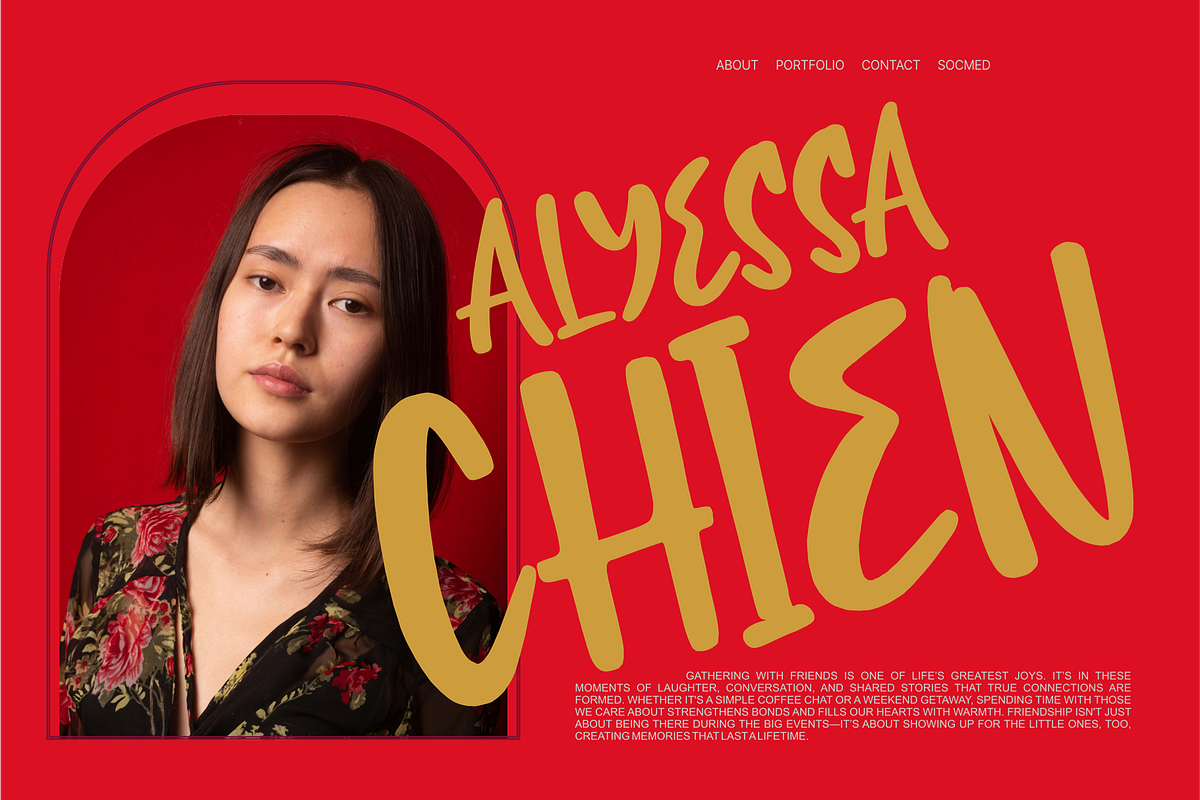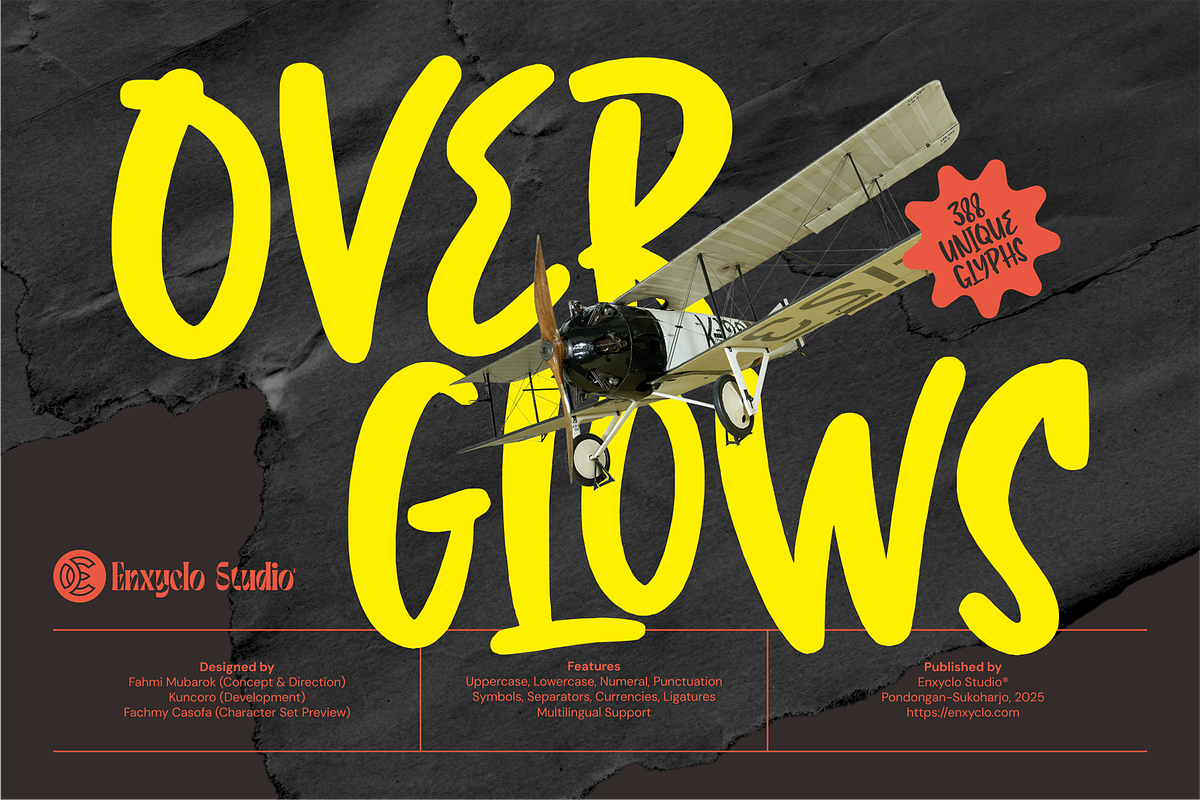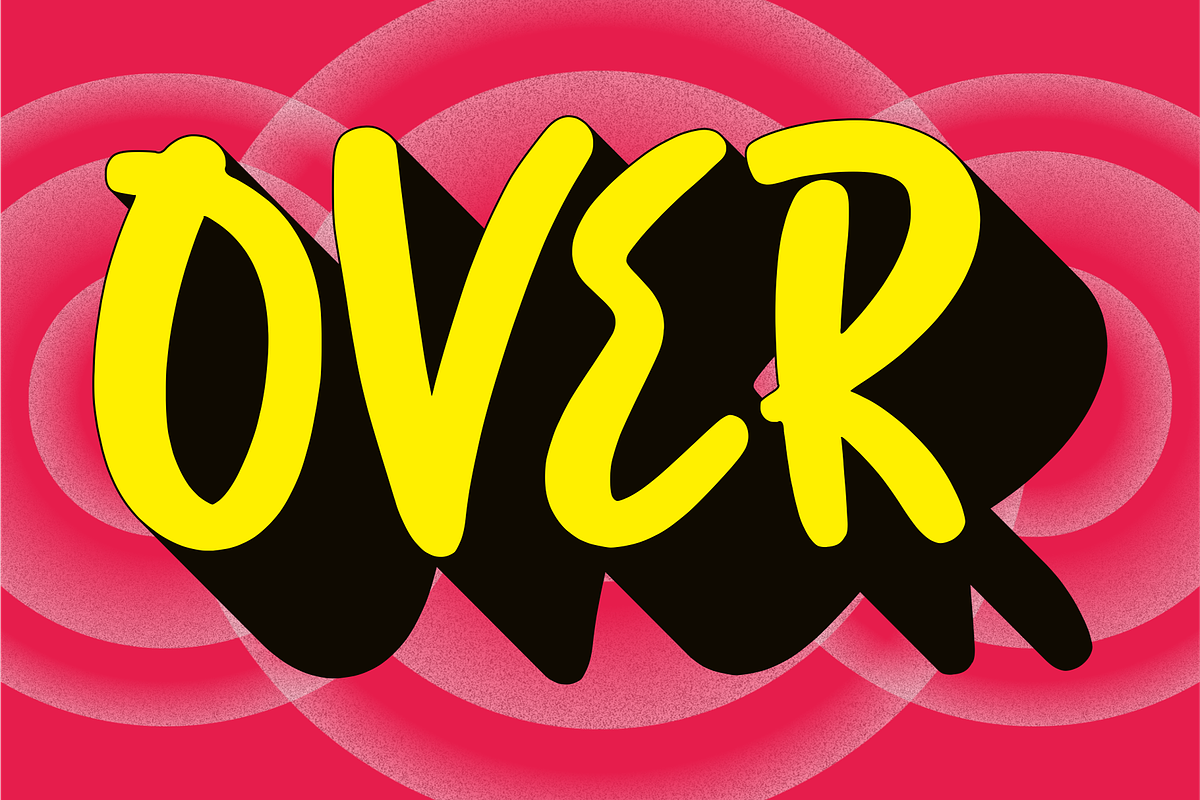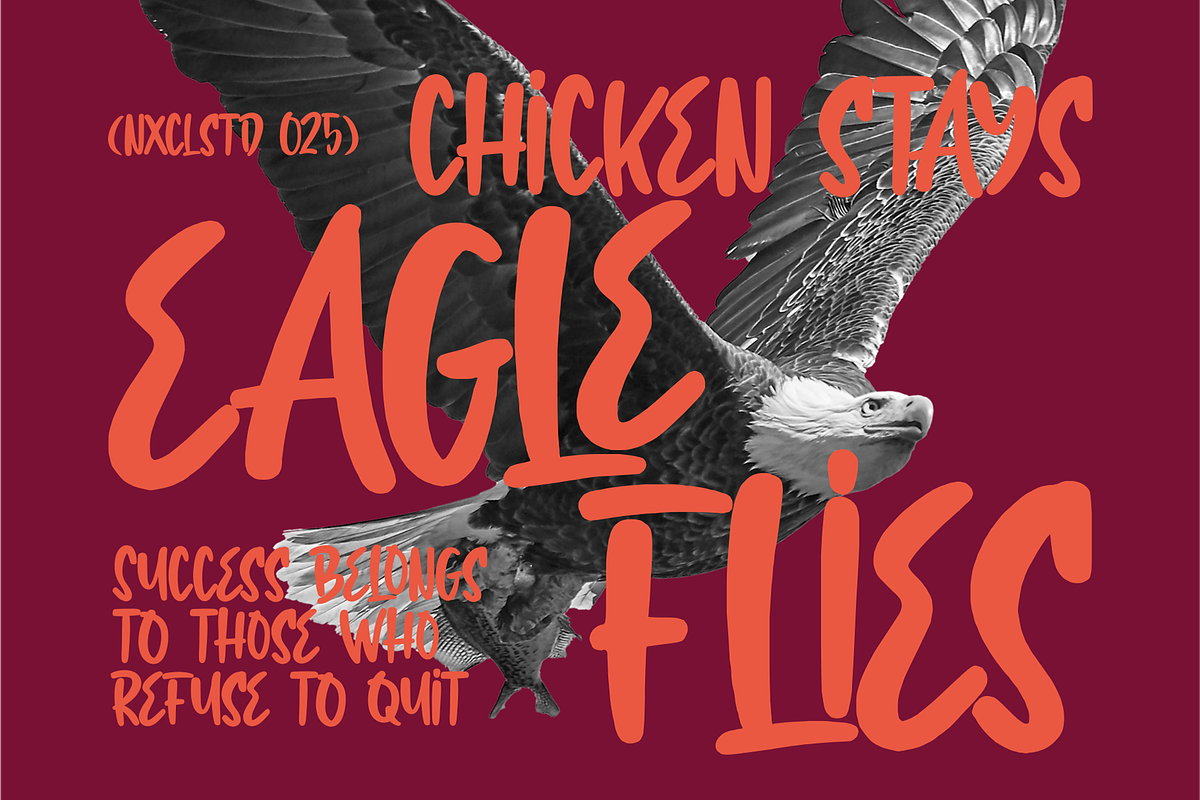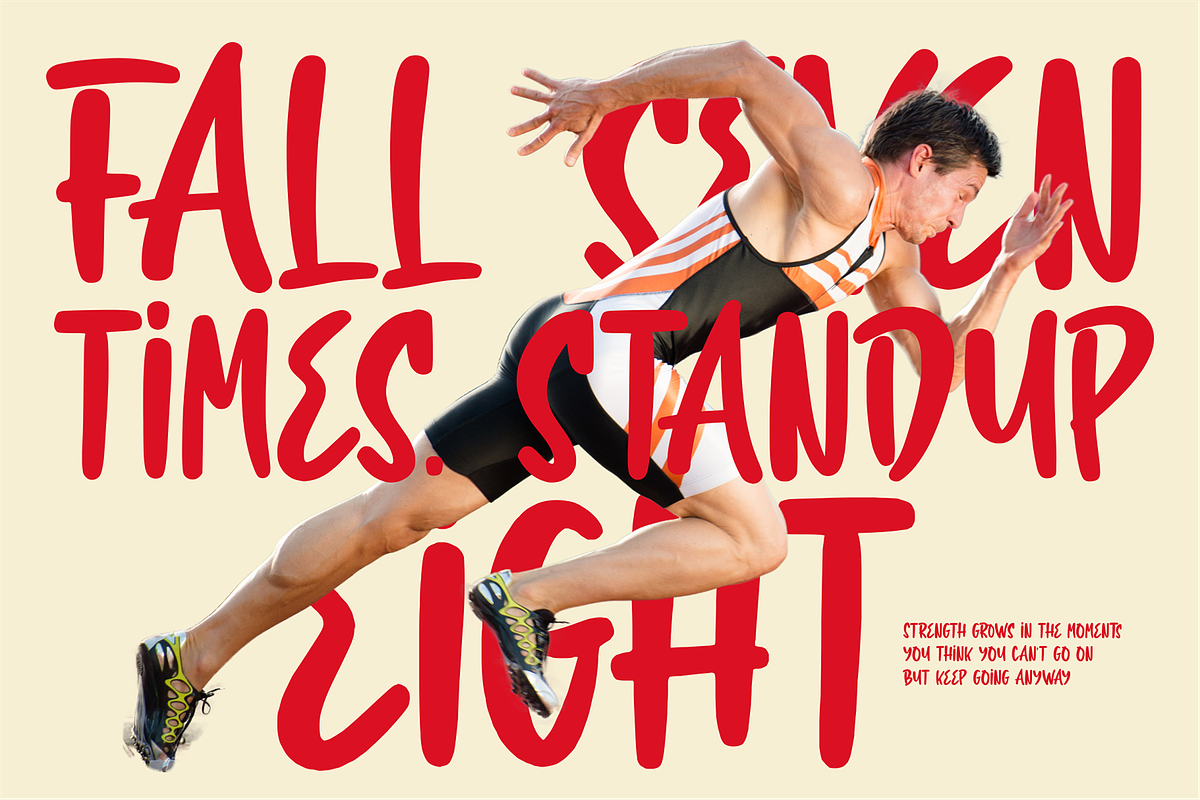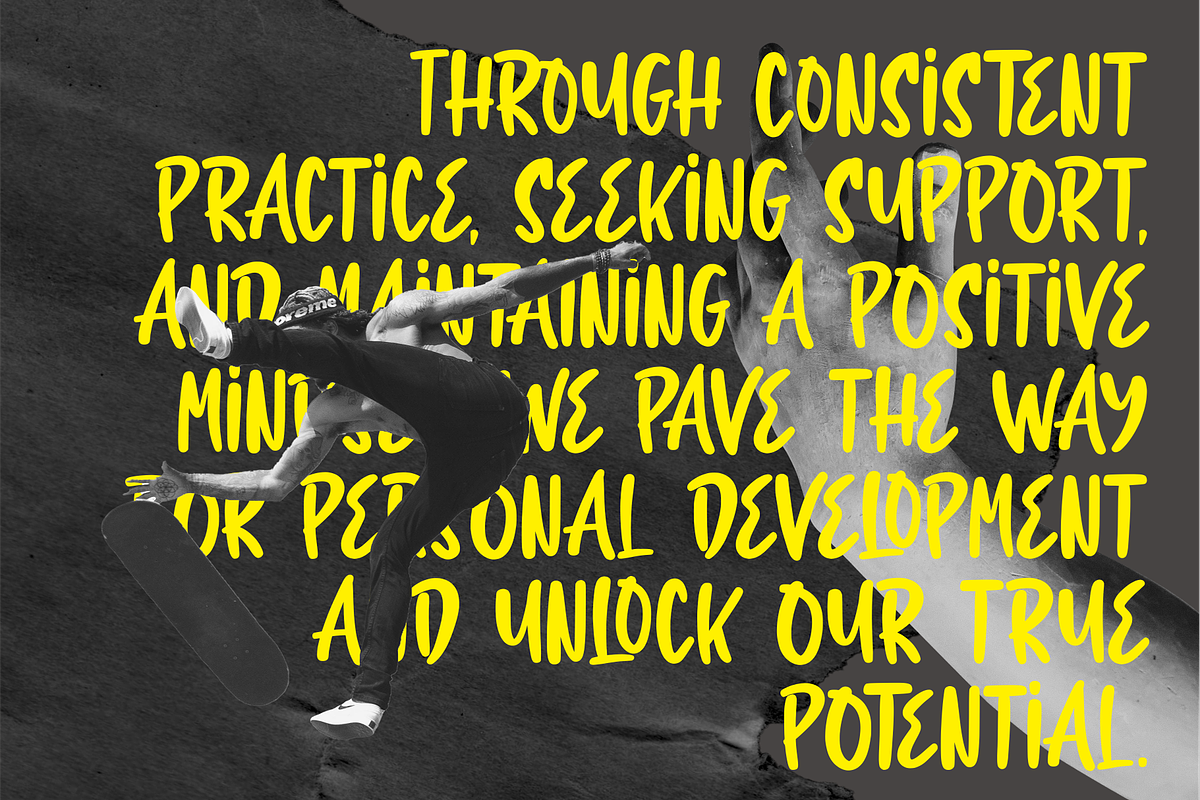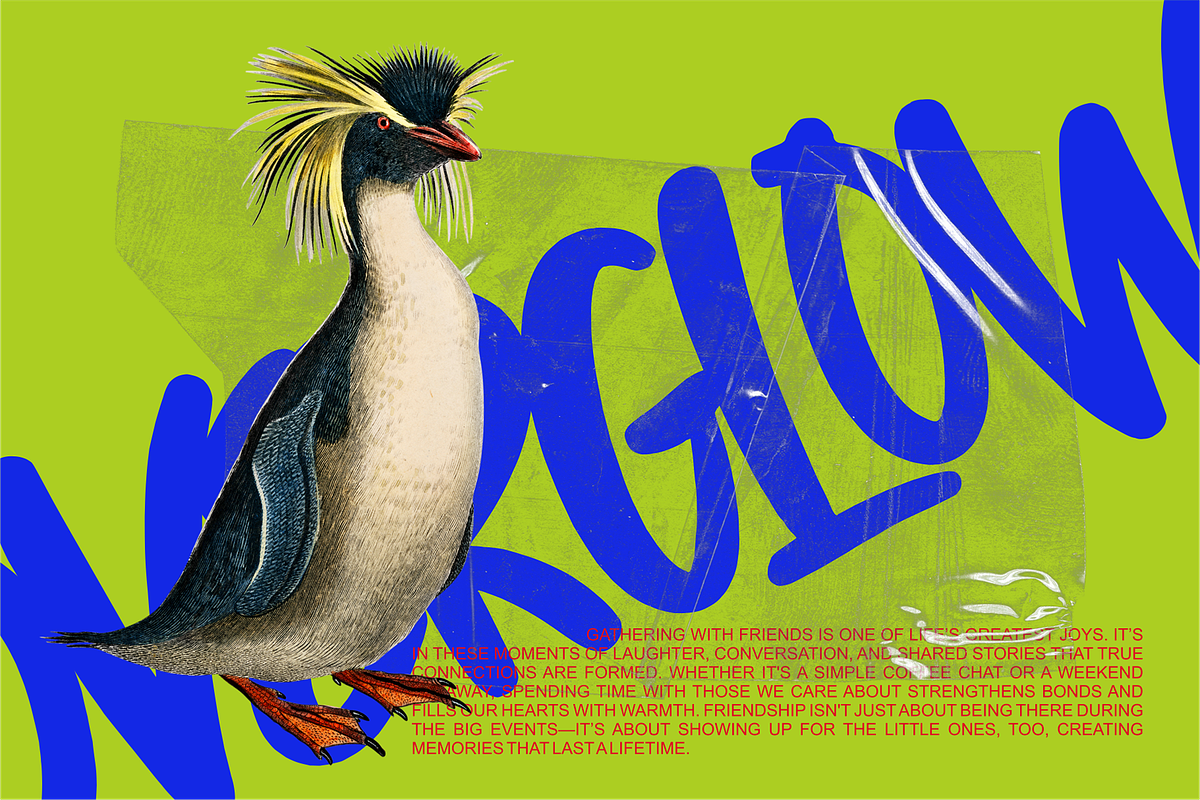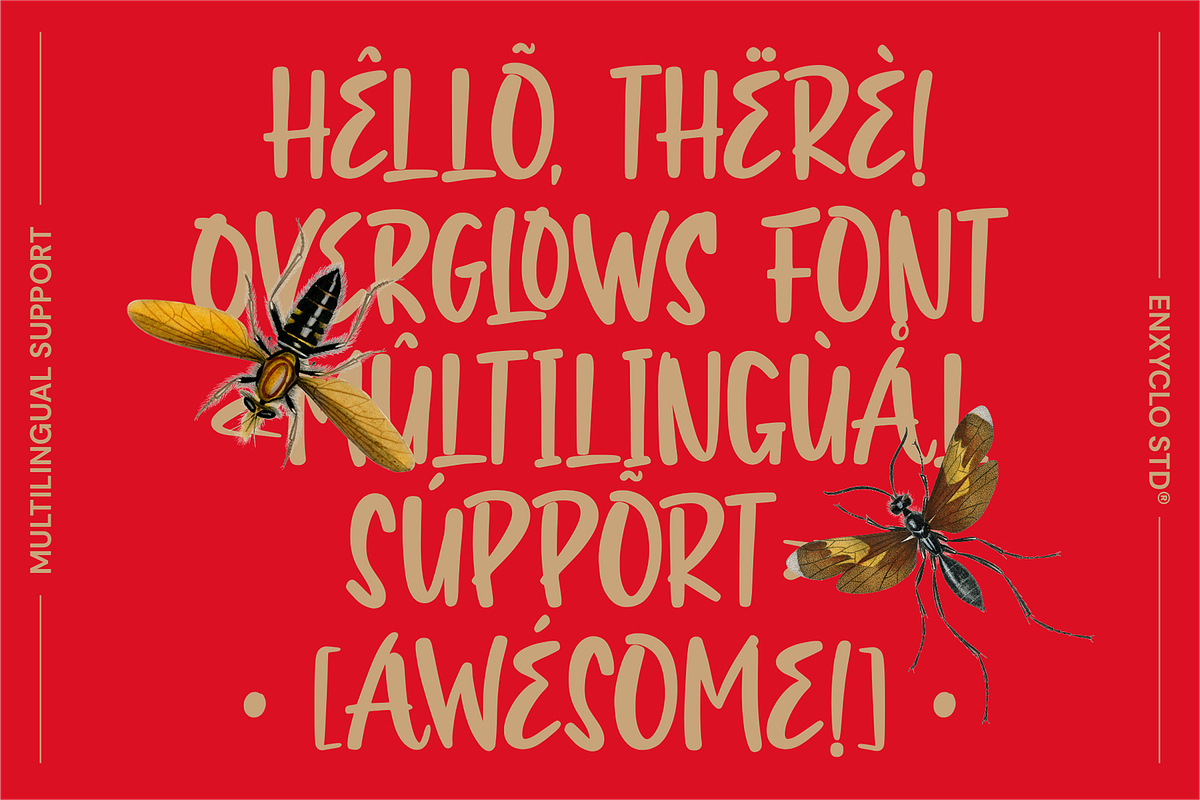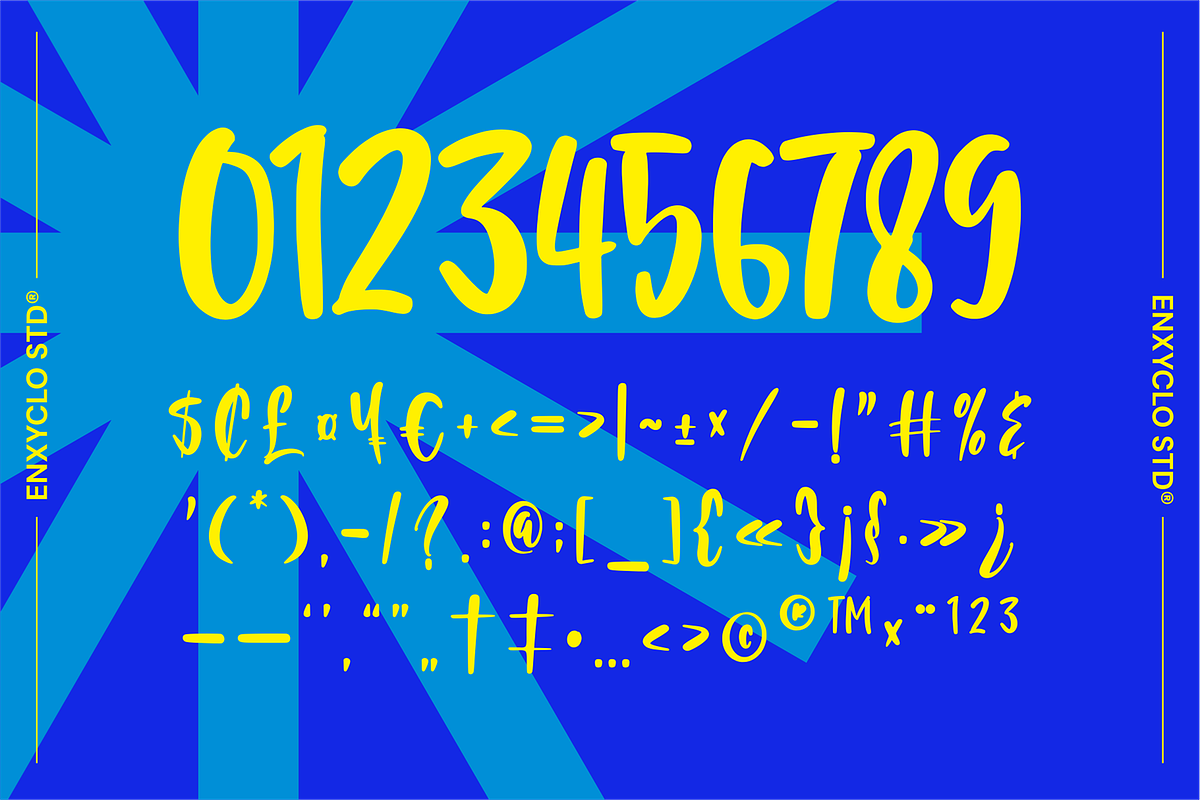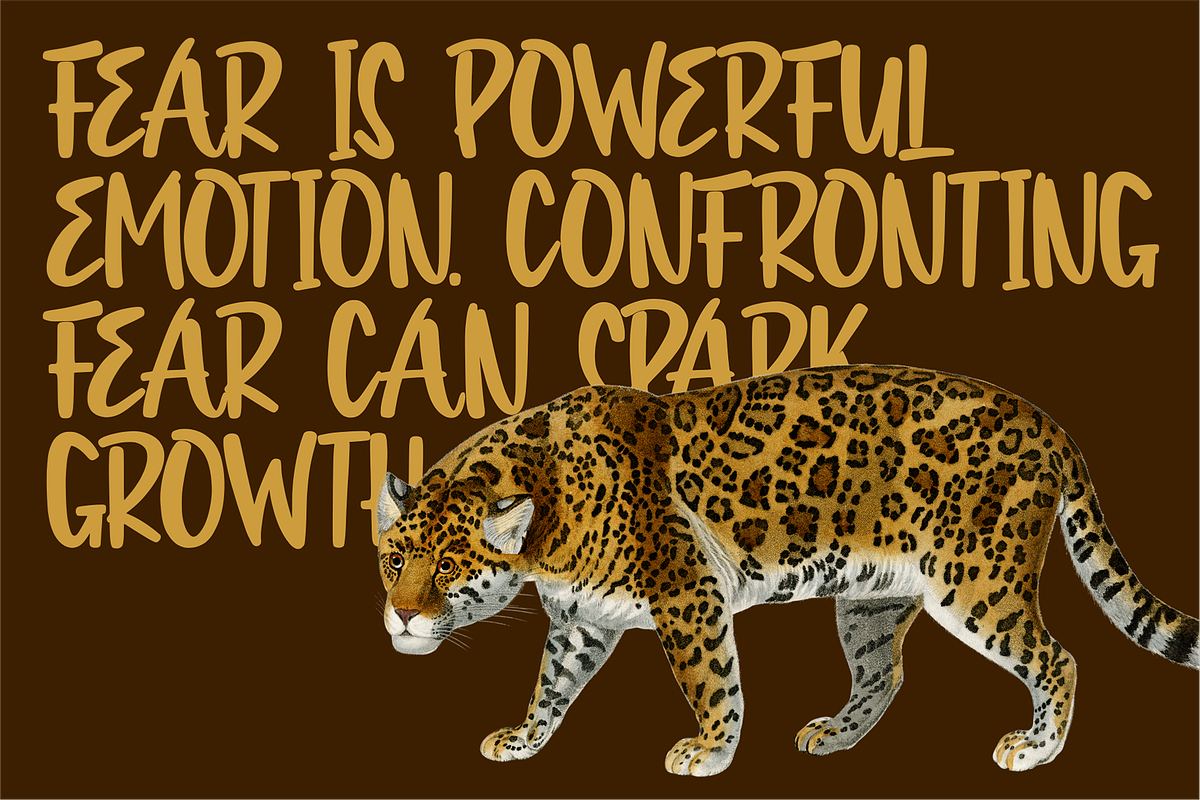
Overglows - Bold Brush Font
Make your designs shine with Overglows, a lively and spirited handwritten font that adds a burst of personality to any project. Designed by Enxyclo Studio, Overglows features bold, dynamic strokes with a natural, free-flowing style perfect for capturing attention and conveying energy and creativity in your visual content.
- Complete character set including uppercase, lowercase, numerals, punctuation, symbols, separators, currencies, and ligatures
- Contains 388 unique glyphs for versatile multilingual support
- Bold and energetic brush strokes that express movement and vibrancy
- Balanced yet spontaneous letterforms for both impact and readability
- Ideal for use in both print and digital media
- Branding and logo design requiring a distinctive, hand-crafted feel
- Posters, flyers, and social media graphics that need to stand out
- Packaging and product labels seeking a dynamic, eye-catching font
- Invitations and greeting cards with a personal and artistic touch
- Headings and display text in blogs, websites, and editorial layouts that demand creativity and uniqueness